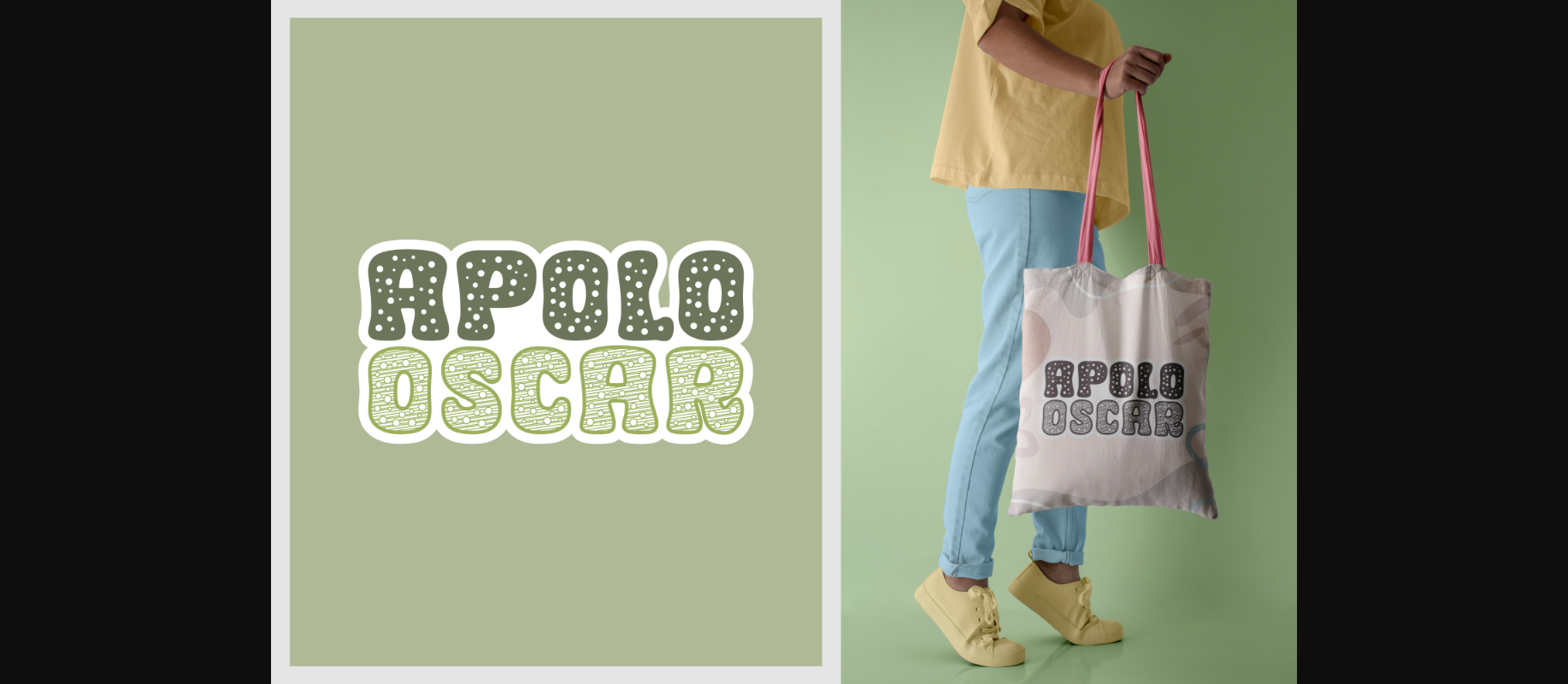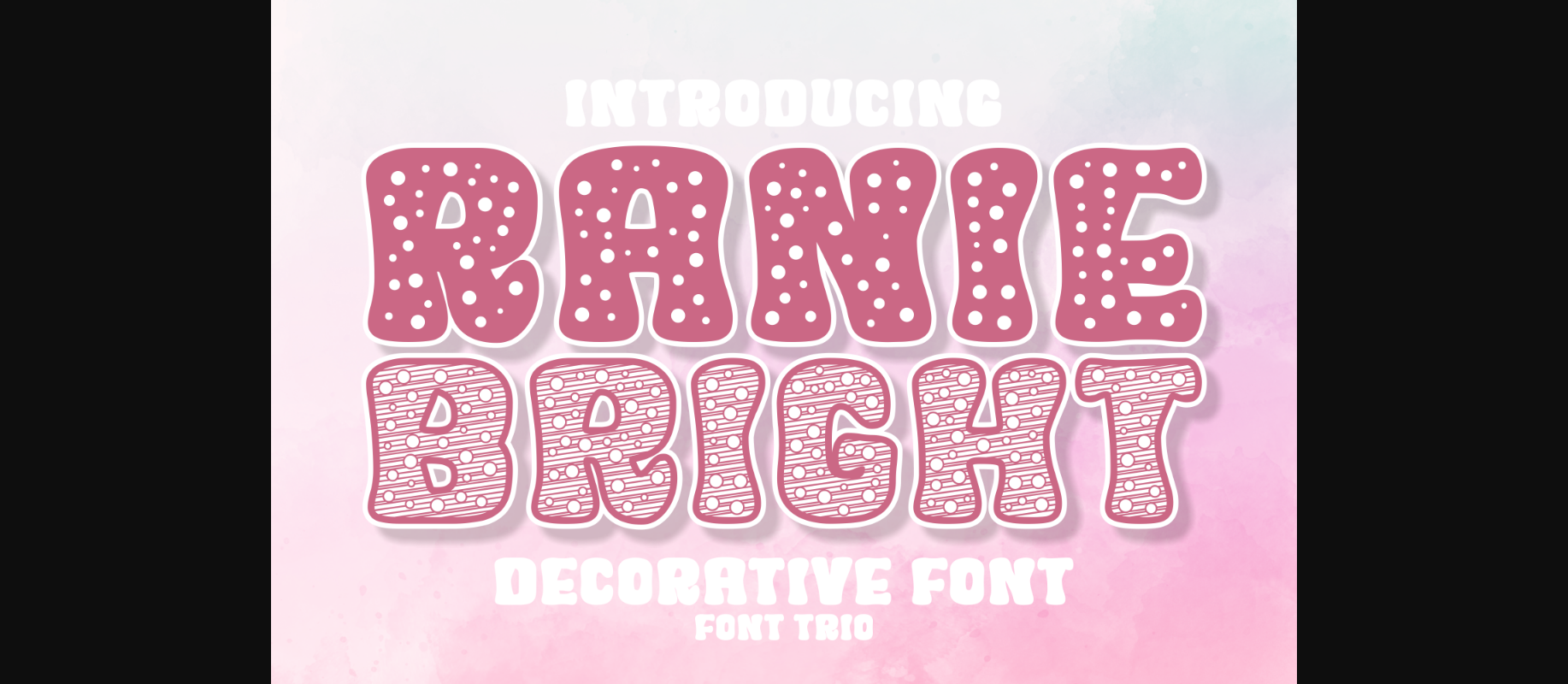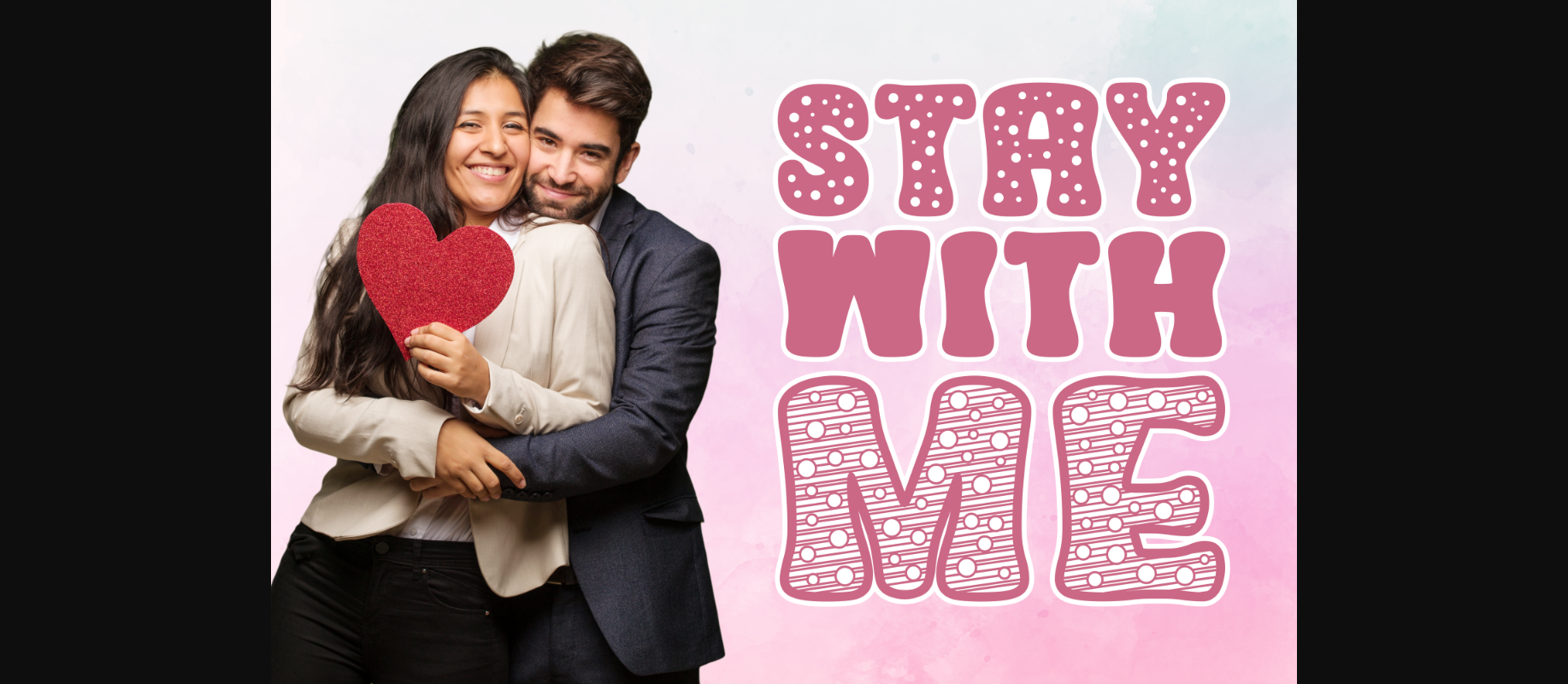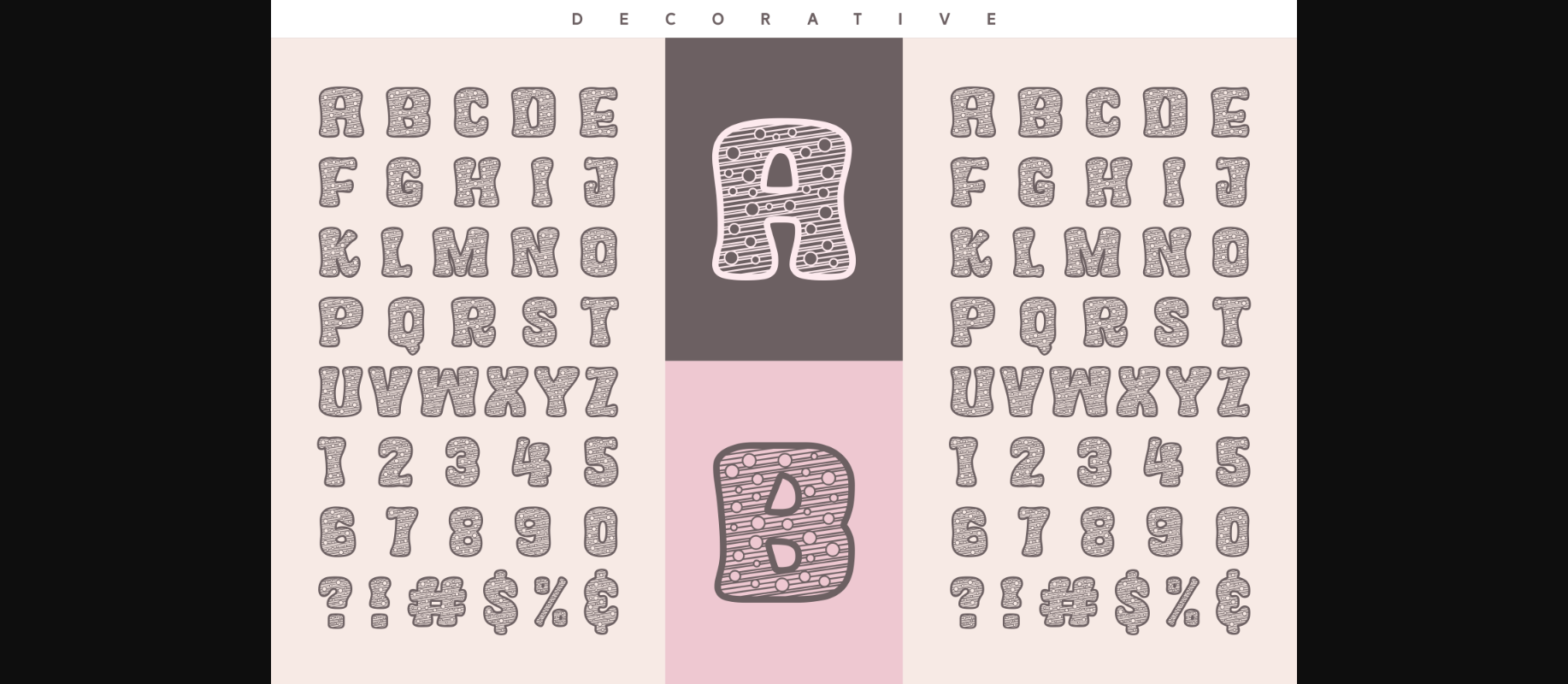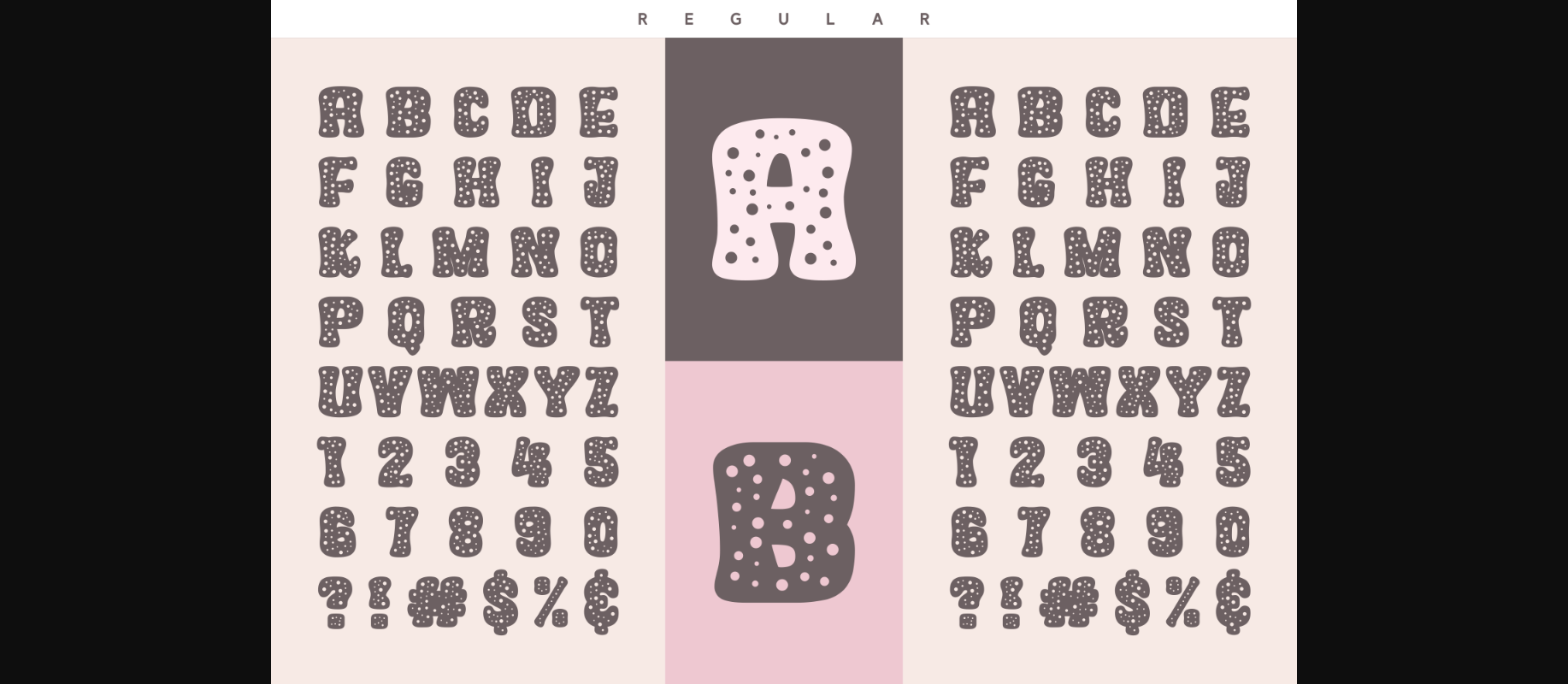
Ranie Bright Font
About Ranie Bright Font
Ranie Bright is a bold, all-caps decorative font that enlivens all kinds of design ideas. Whether you’re using it for crafting, presentations, logos, or digital designing, it will fit like a glove.